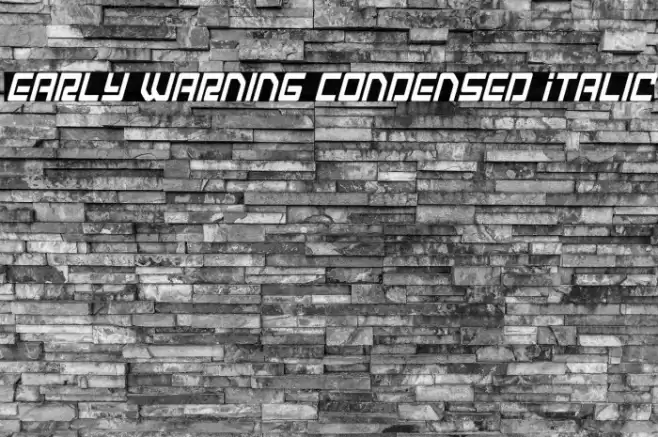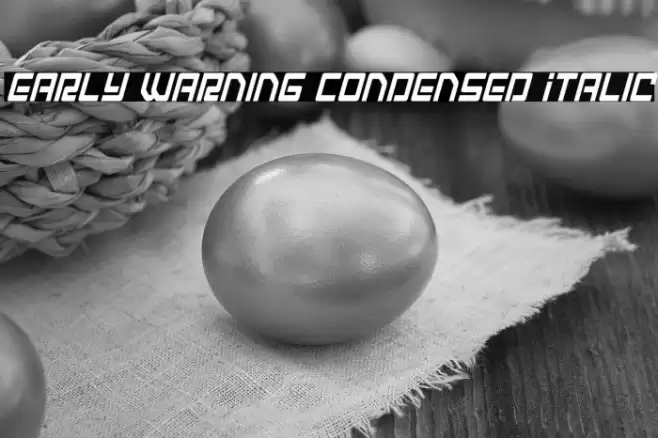
Early Warning Condensed Italic Font
Early Warning Condensed Italic Description
This font features a bold, italicized style with a distinctly futuristic and angular appearance. The characters are condensed, giving them a sleek and streamlined look. The strokes are thick and consistent, providing a strong visual impact. Each letter leans forward, enhancing the sense of motion and urgency. The design is highly geometric, with sharp edges and clean lines, making it ideal for modern and tech-oriented projects. The numbers and special characters maintain the same stylistic elements, ensuring uniformity across all glyphs.
A bold, italicized, and condensed font with a futuristic, angular design from Uncategorized fonts.
- Proposed Projects: Ideal for technology branding, sci-fi movie posters, video game titles, and modern advertising.